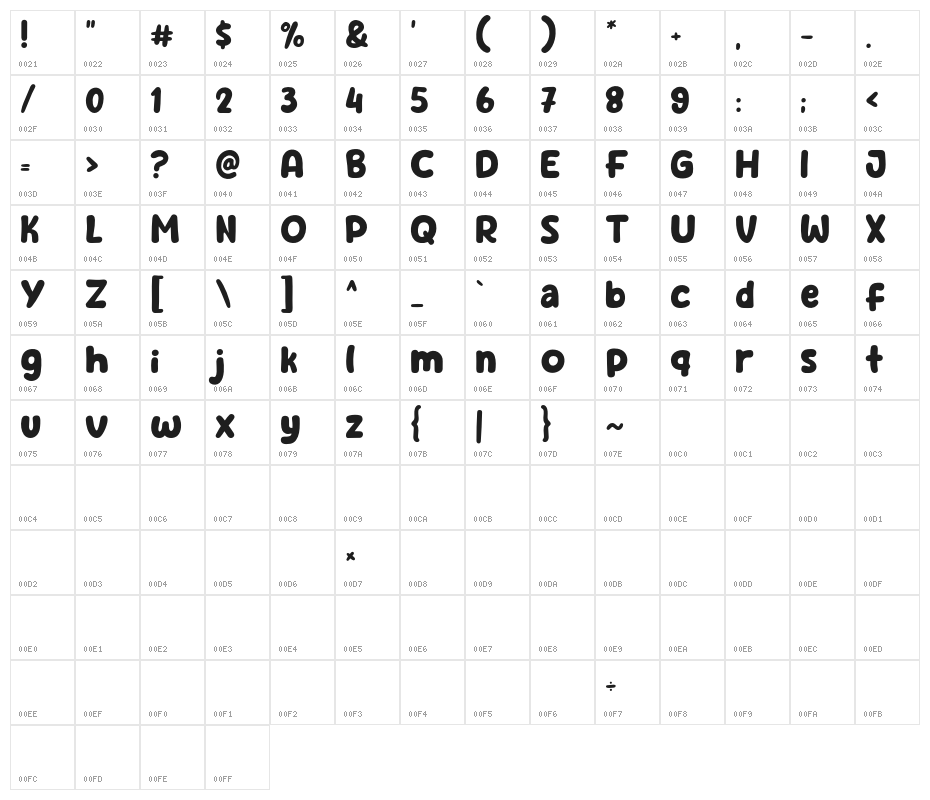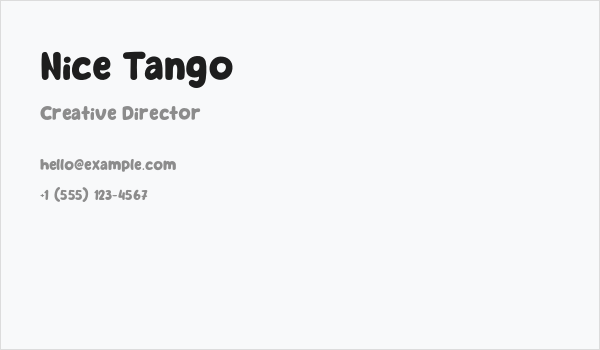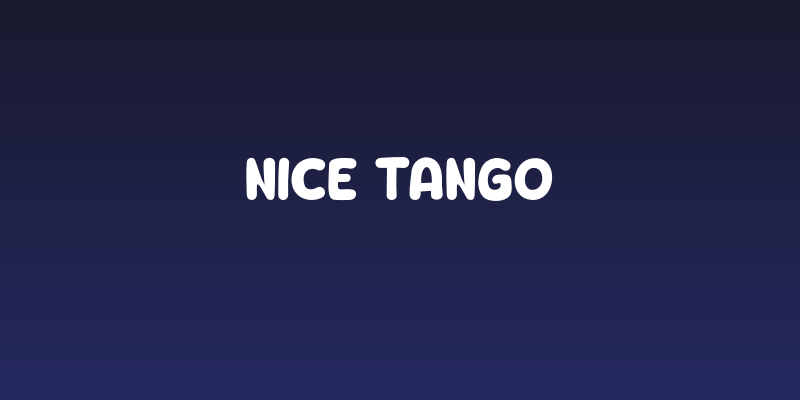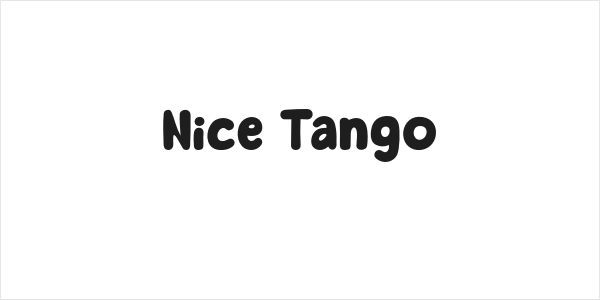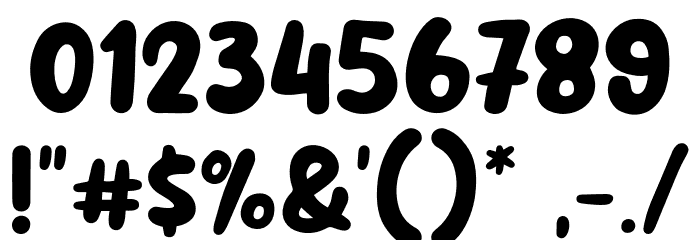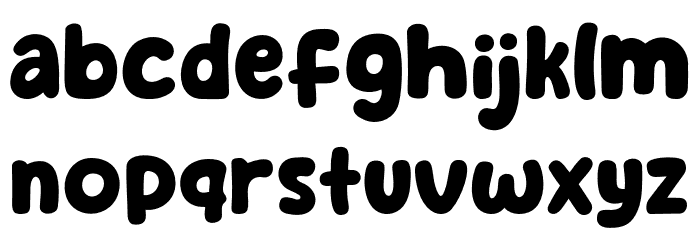
Nice Tango Font
Nice Tango Description
This playful and bold font features rounded, bubbly characters that convey a sense of fun and approachability. The letters are thick and uniformly weighted, giving them a strong presence on the page. The rounded edges and smooth curves create a friendly and informal appearance, making it ideal for designs that aim to be inviting and engaging. The font maintains consistent proportions across both uppercase and lowercase letters, ensuring readability while adding a whimsical touch. Its distinctive style is further enhanced by the slightly exaggerated shapes of certain characters, such as the 'a' and 'g', which add to its unique charm. The numerals and special characters are equally bold and rounded, maintaining the cohesive look of the entire typeface.
| Overall Style | Playful |
| Proposed Projects | Ideal for children's books, playful branding, party invitations, and casual social media graphics. |